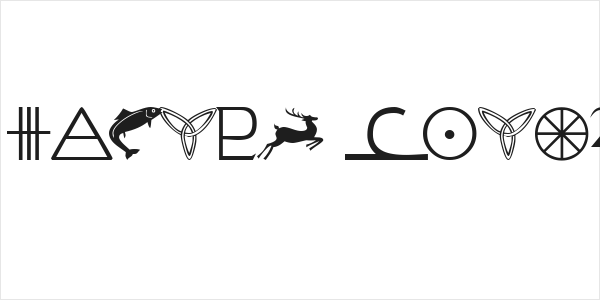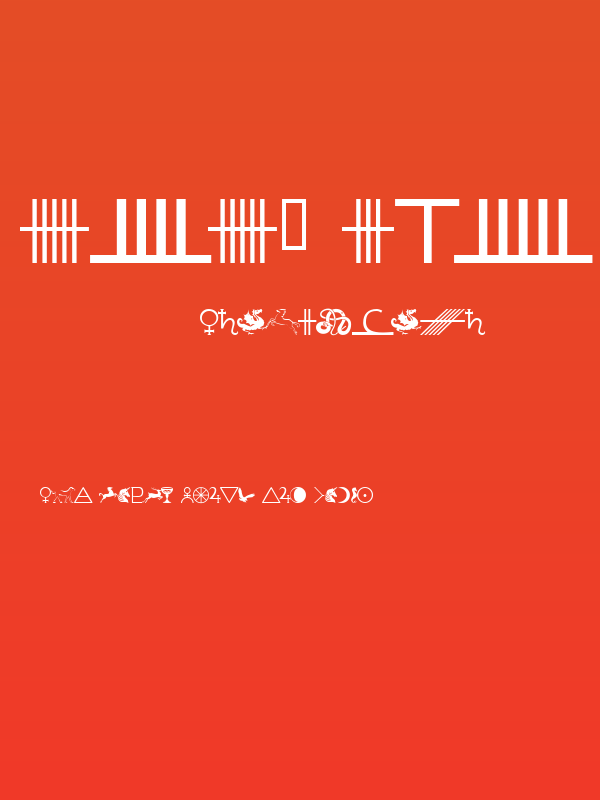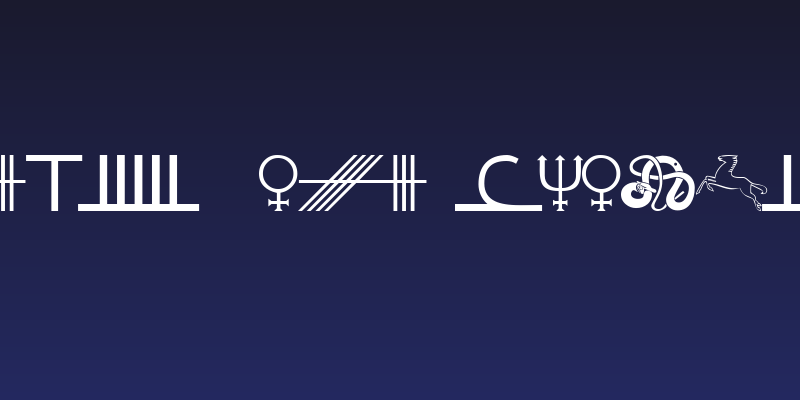
101! Celtic Astrologer Font
101! Celtic Astrologer Description
This set of symbols is inspired by Celtic astrology and features a variety of intricate and symbolic designs. The characters include a mix of astrological symbols, mythical creatures, and geometric shapes, each with a distinct and elaborate style. The symbols are highly decorative, with a strong emphasis on curves and lines that intertwine to create complex patterns. The overall aesthetic is mystical and ancient, evoking a sense of historical and cultural richness. These symbols are not traditional alphabetic characters but rather a collection of icons that convey meaning through their visual form.
| Use Case | Logos, Decorative elements |
| Proposed Projects | Ideal for use in themed graphic design projects, such as creating mystical posters, book covers, or themed event invitations. They can also be used in digital art to add a touch of ancient symbolism. |